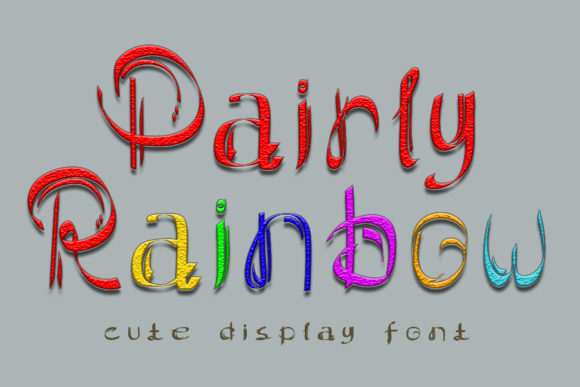
Step into a world of magic and imagination with Pairly Rainbow Font, the enchanting display font that breathes life into your creative projects. Its playful and joyous personality shines through every curve and stroke, making it the perfect choice for designs that aim to captivate and inspire.
Designed by the talented FL Space, Pairly Rainbow Font belongs to the display font family, known for its bold and expressive characters. Each letter is a work of art, meticulously crafted to reflect the vibrant energy of a rainbow. Its unique cursive style adds a touch of elegance and charm to any design, whether it's a children's book, a playful logo, or a whimsical invitation.
Let Pairly Rainbow Font paint your words with joy. Its delightful curves and cheerful lines create a sense of wonder and excitement, effortlessly capturing the attention of your audience. Whether you're a graphic designer, a social media enthusiast, or simply someone who loves to add a pop of color to their projects, Pairly Rainbow Font is the perfect tool to bring your creative visions to life.
With its versatility and charm, Pairly Rainbow Font is the ideal choice for a wide range of design projects. Let your imagination soar as you craft eye-catching posters, vibrant website graphics, or enchanting social media posts that are sure to leave a lasting impression. Pairly Rainbow Font is more than just a font; it's an invitation to let your creativity shine.
So, embrace the magic of Pairly Rainbow Font and embark on a creative adventure where imagination knows no bounds. Let the colors of the rainbow dance across your screen as you create designs that are as unique and captivating as they are joyful. Experience the transformative power of Pairly Rainbow Font and unlock a world of endless creative possibilities.